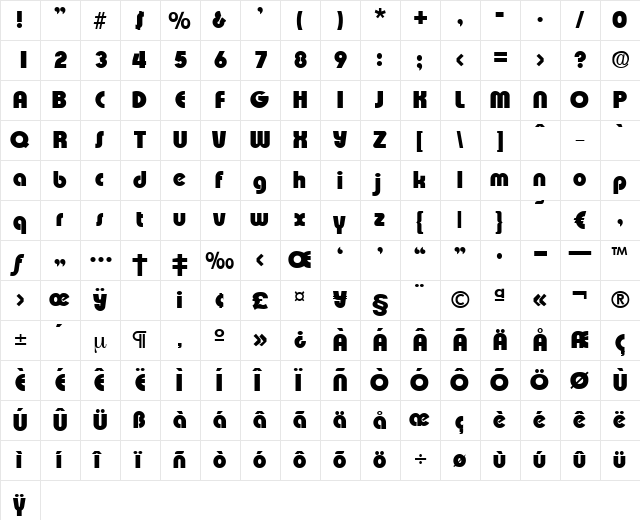
Expressa-Heavy Regular
Design Context for Expressa-Heavy Typeface
Expressa-Heavy offers clean, dependable letterforms without strong stylistic allegiance, making it a practical choice for designers who need flexibility.